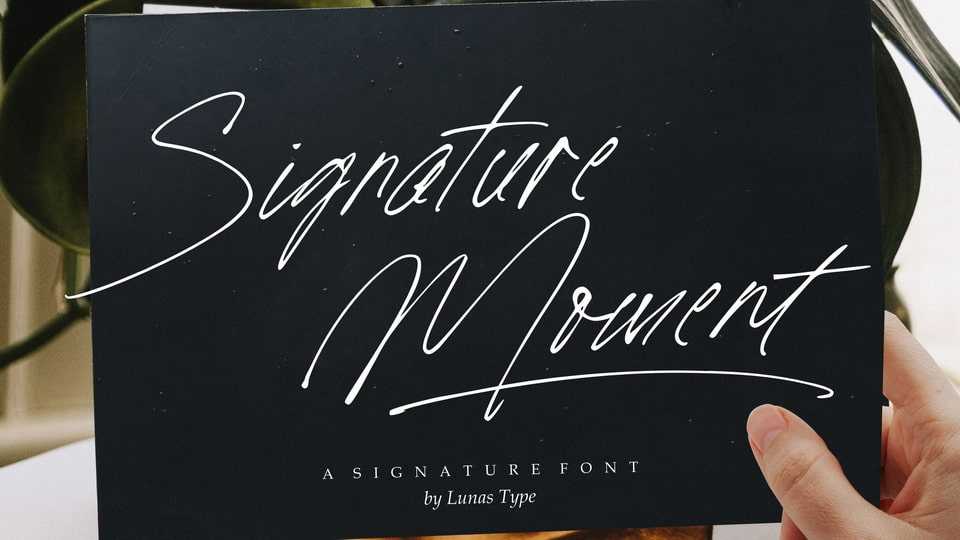
Download Signature Moment font, a stylish typeface designed to capture the essence of a personal signature. With its fluid strokes and intricate details, Signature Moment adds a touch of sophistication and individuality to any project or design.
Designer: Lunas Type